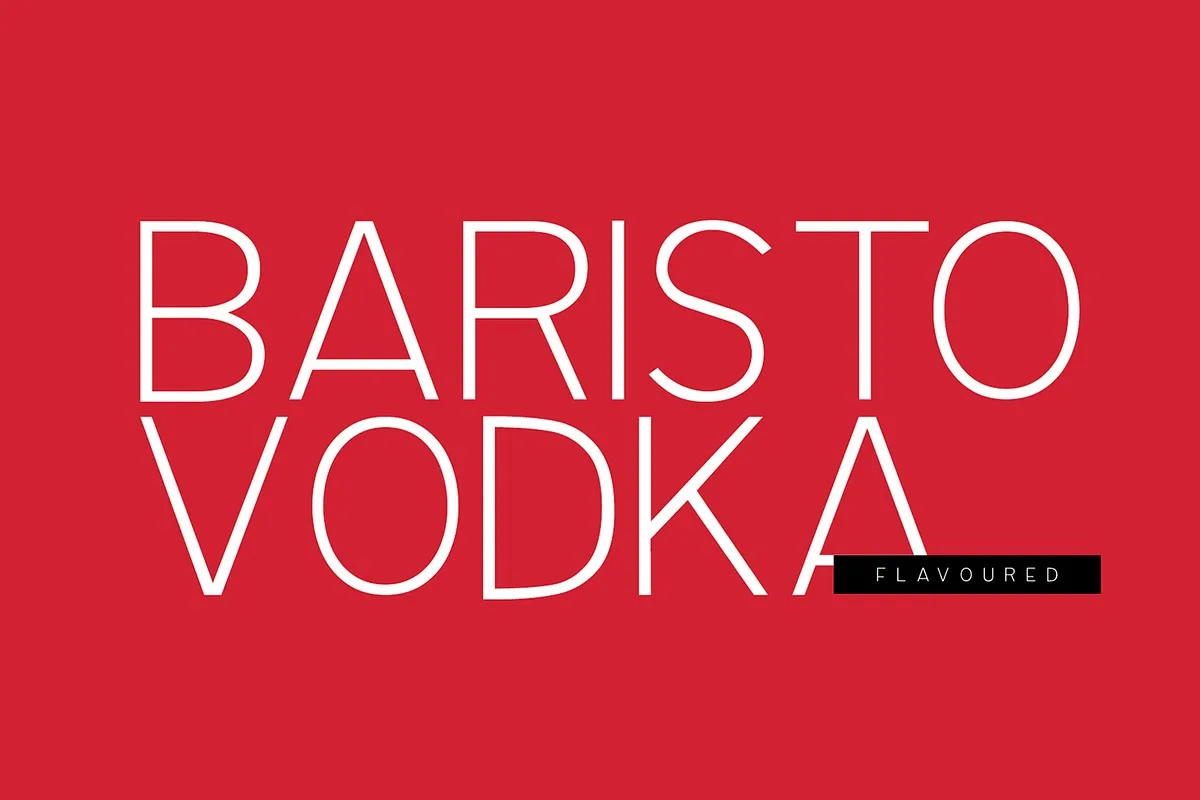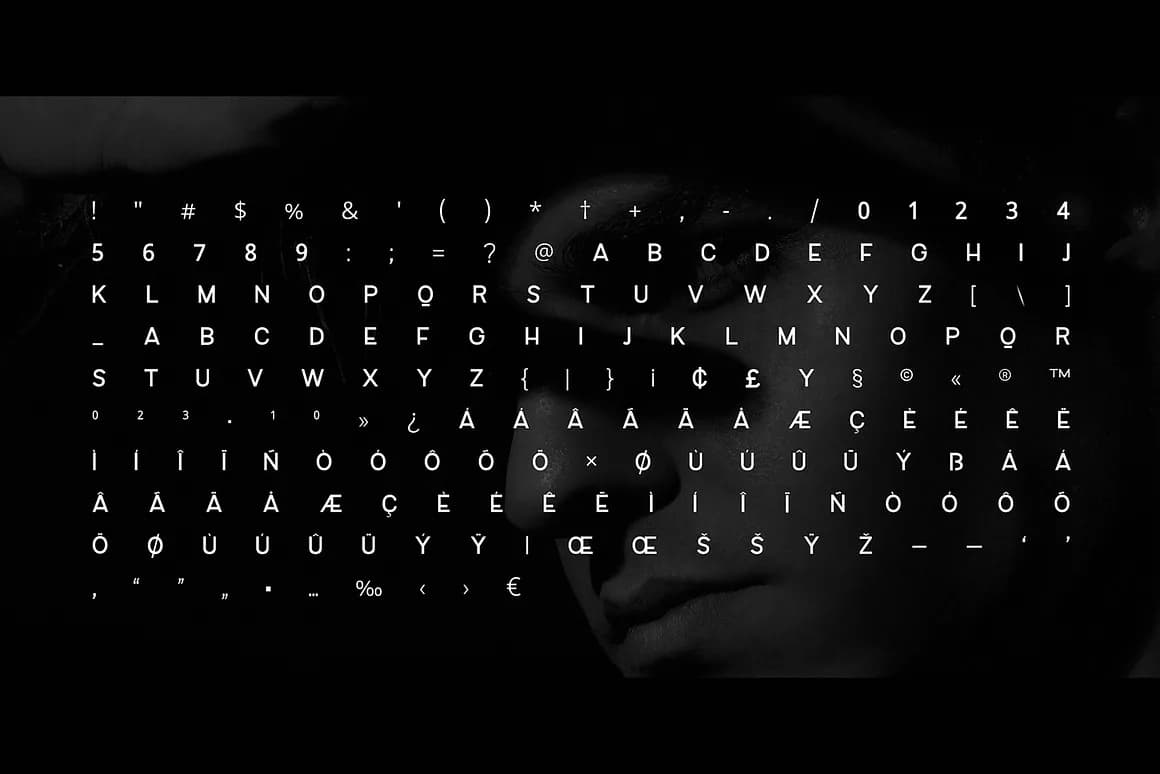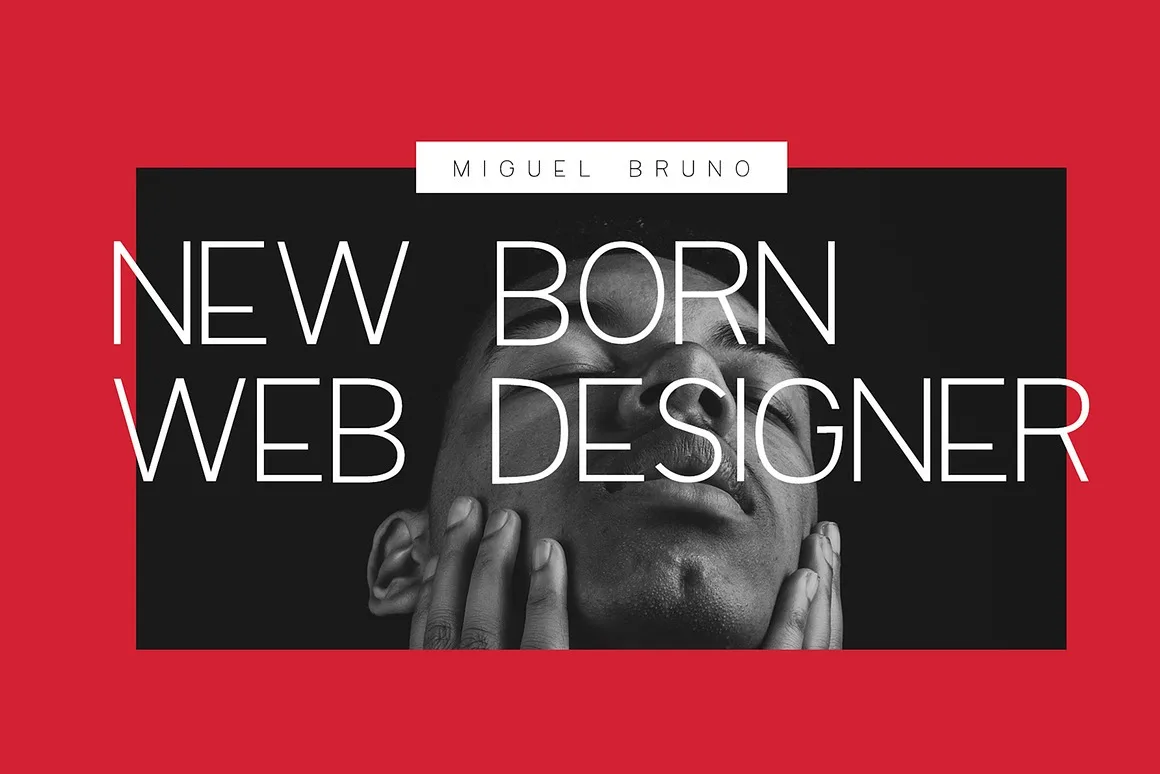
BARISTO
Introducing Baristo, a timeless all-uppercase Display typeface family designed with simplicity and readability as top priorities. Featuring a total of 9 weights—from Thin to Heavy—along with their corresponding Italic versions, Baristo provides comprehensive visual capabilities to make your projects truly extraordinary. This font is a perfect choice for beautiful branding, logo/logotype design projects, and versatile marketing graphics. Its sleek design makes it ideal for everything from banners, posters, and corporate identities to fine editorial design. For a refined, minimal look, simply add extra letter-spacing for stunning headlines. The full pack includes OTF, TTF, and Web Fonts, along with HTML & CSS presets for easy integration.